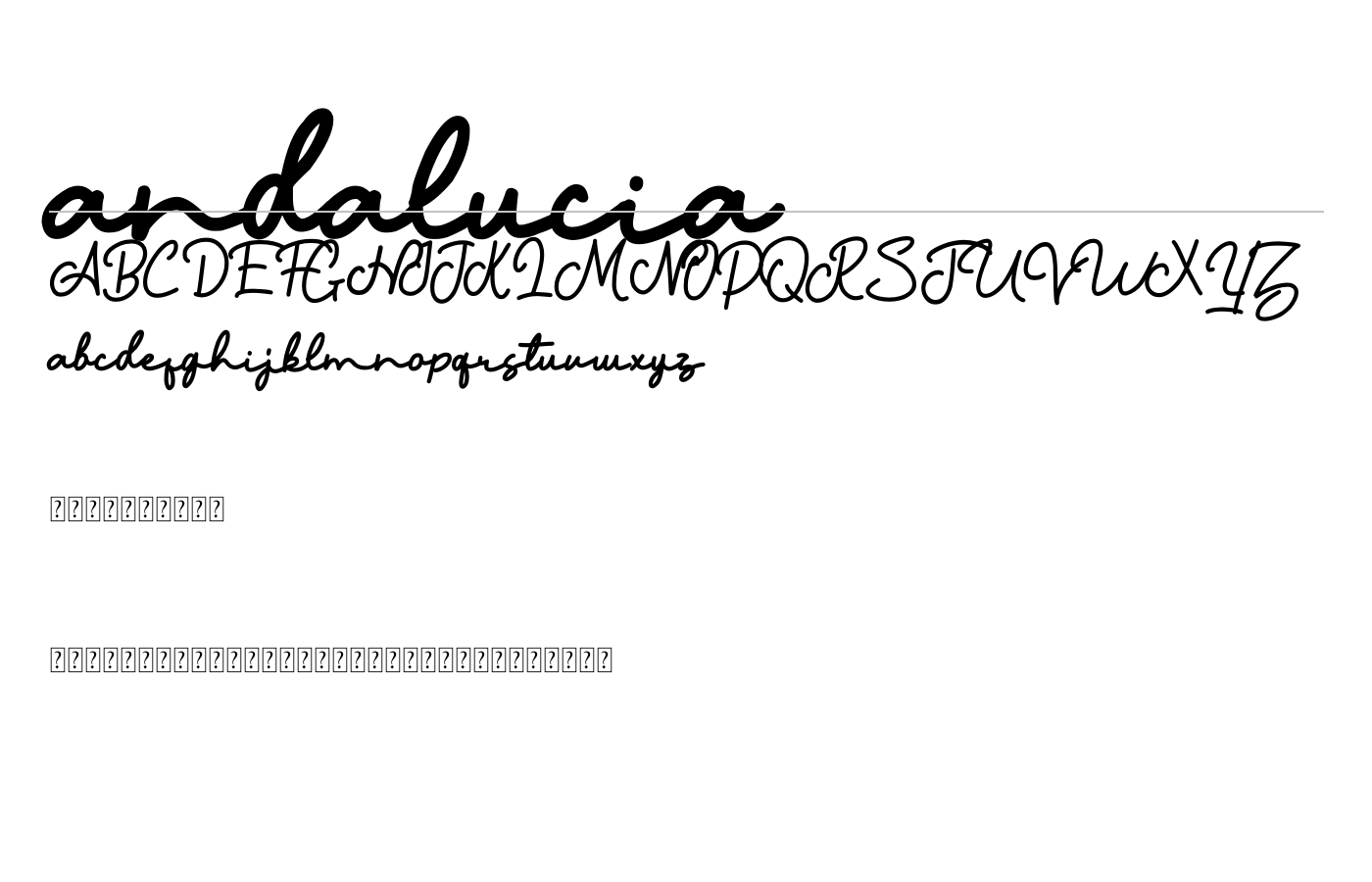
Andalucia is a playful, handwritten script font with a casual and flowing style, featuring smooth, connected lowercase letters and elegant, slightly whimsical uppercase forms. Its medium stroke weight and moderately tall x-height make it readable while maintaining a personal, artistic touch ideal for creative branding, invitations, and informal headlines. This font works well for projects seeking a friendly, approachable vibe with a touch of charm and elegance.
andalucia Font
About andalucia Font